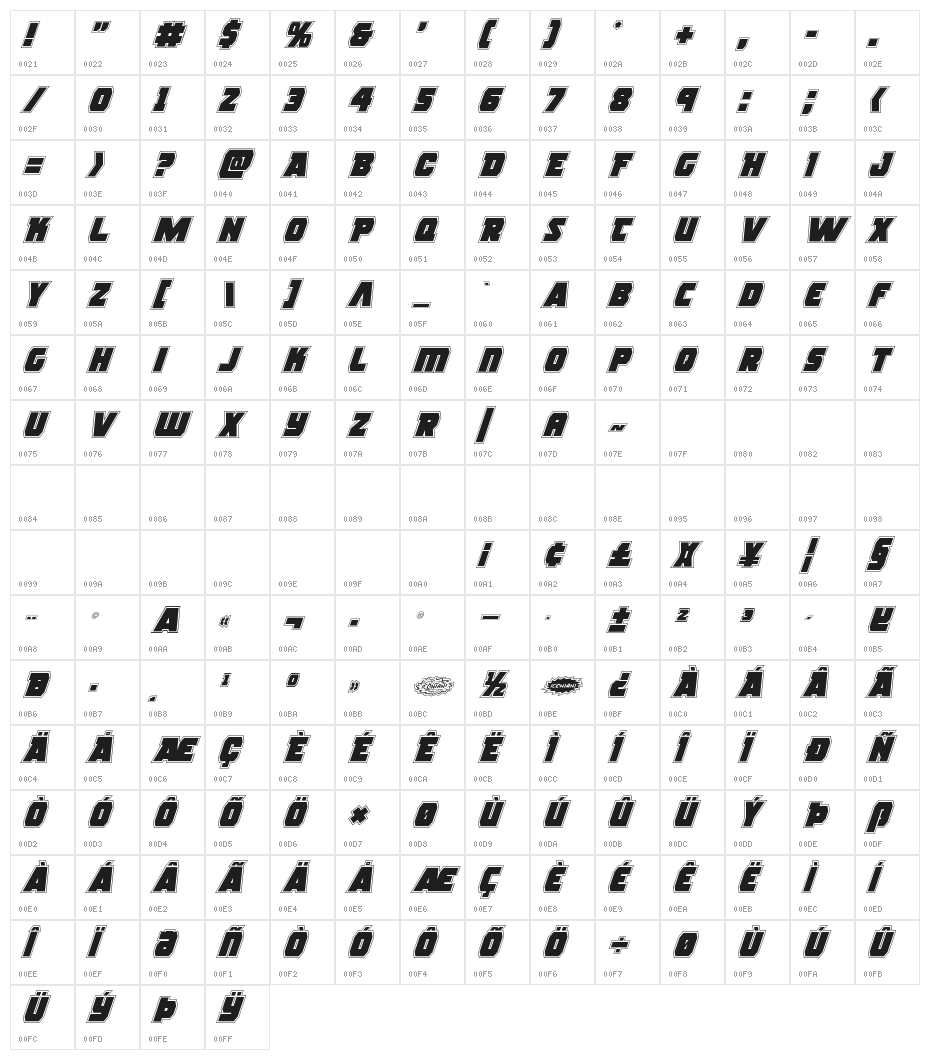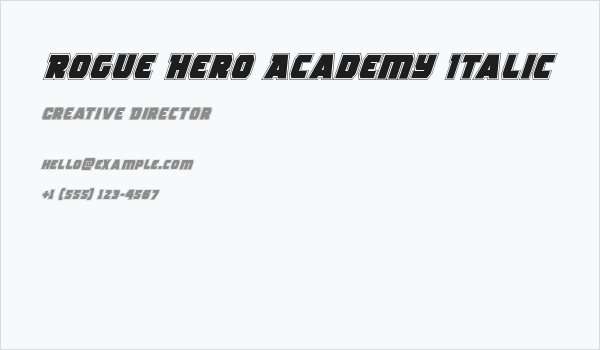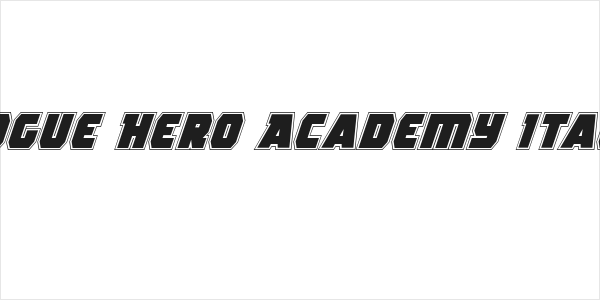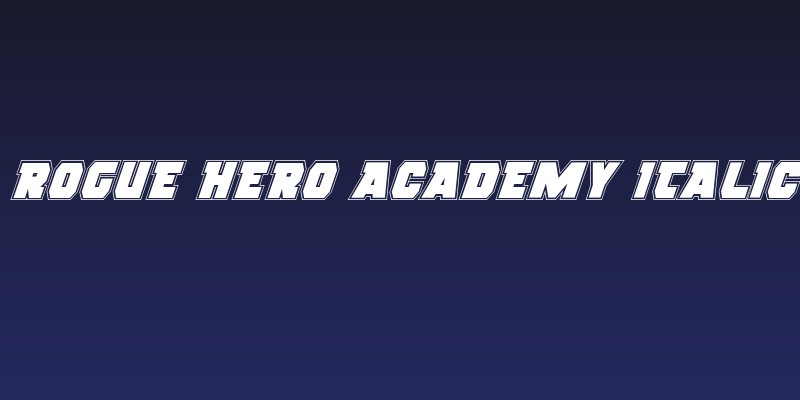
Rogue Hero Academy Italic Font
Rogue Hero Academy Italic Description
This font features a bold, italicized style with a strong, dynamic presence. The characters are outlined with a thick border, giving them a three-dimensional effect. The design is angular and geometric, with sharp edges and a slightly condensed form. The uppercase and lowercase letters maintain a consistent style, while the numbers and special characters complement the overall aesthetic. This font is ideal for projects that require a bold and impactful look, such as sports branding, posters, or video game titles.